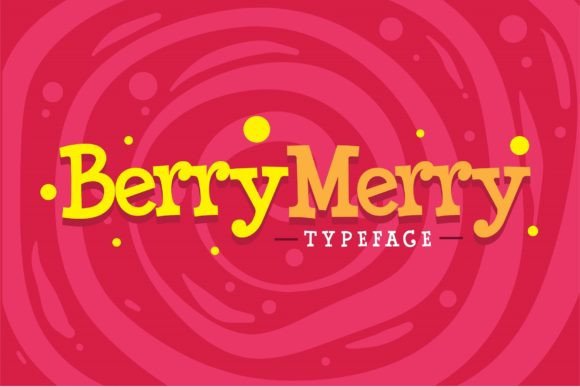
Introducing Berry Merry Font - A Typographic Masterpiece for Your Creative Endeavors!
Dive into the world of Berry Merry, a captivating display font that oozes charm and playfulness. Inspired by the fabulous mid-century designs, this font effortlessly blends retro vibes with a modern twist. Designed by the talented team at HipFonts, Berry Merry is a delightful serif font that ignites your imagination and transforms your projects into visual masterpieces.
Get ready to craft stunning headers that captivate your audience, social media posts that pop with personality, posters that scream uniqueness, and birthday cards that spread joy. This versatile font is also perfect for magazines, packaging, branding, and any project that demands a touch of whimsy and sophistication.
With Berry Merry as your typographic tool, you'll unlock a world of creative possibilities. Let your imagination run wild and create designs that resonate with your audience, leaving an indelible mark on their minds. Embrace the Berry Merry experience and elevate your projects to new heights of creativity and charm.